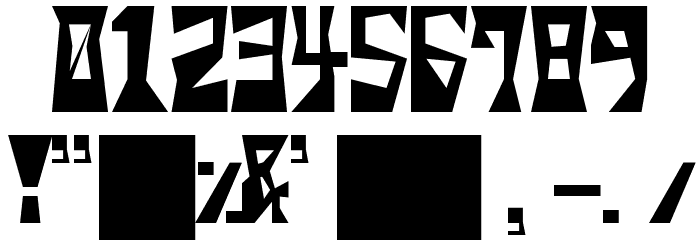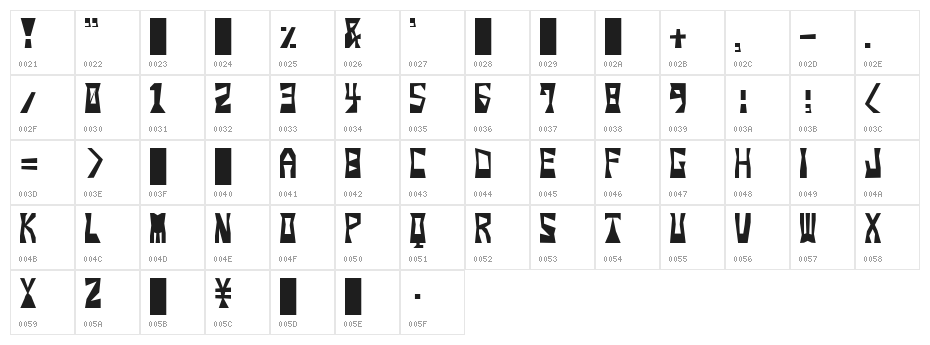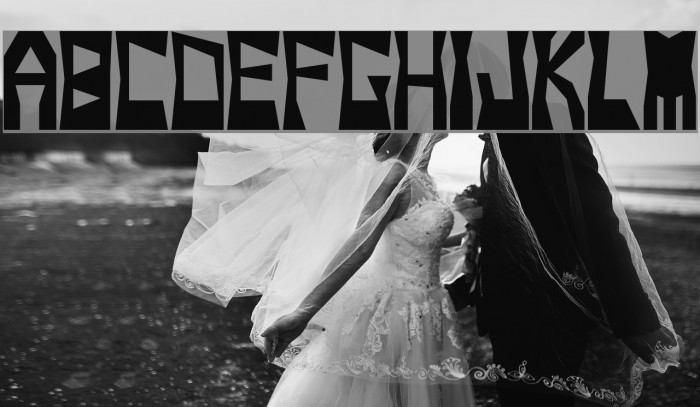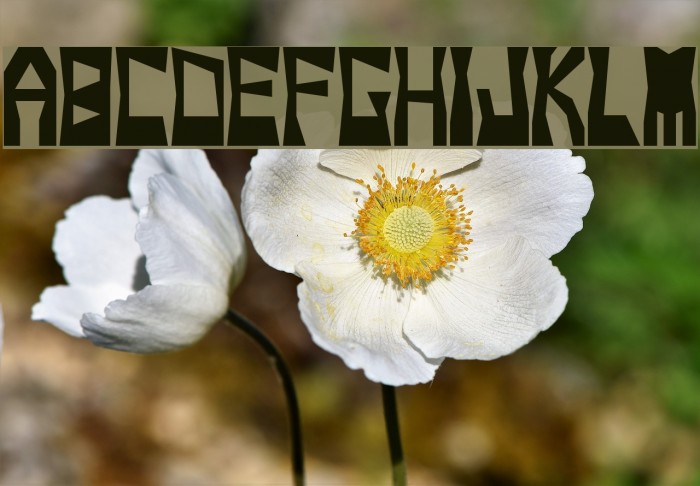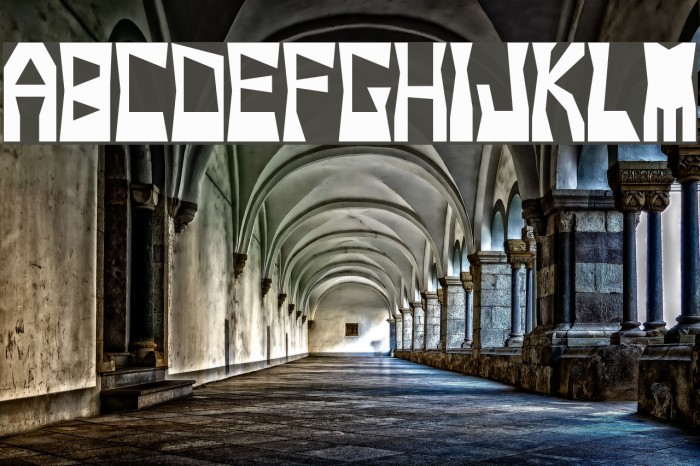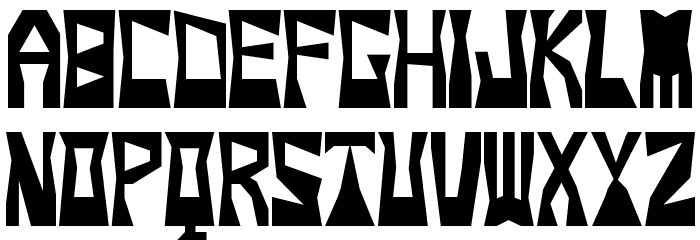
snoop Font
This font features a bold and geometric design with sharp, angular edges and a strong presence. The characters are constructed with a mix of thick and thin strokes, creating a dynamic and edgy appearance. The uppercase and lowercase letters maintain a consistent style, with the uppercase being more pronounced. The numbers and special characters follow the same geometric theme, making the font suitable for attention-grabbing designs. Its unique style is reminiscent of modern, urban aesthetics, making it ideal for projects that require a bold statement.